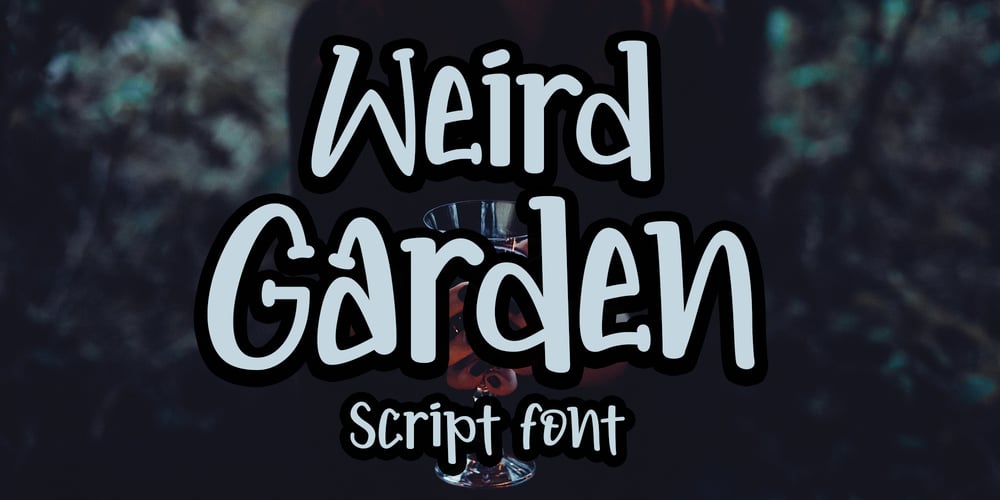
Weird Garden Font Family was designed by Endri Sulistyawan and published by Rashatype. Weird Garden contains 2 styles and family package options. Weird Garden is a cool, quirky and spooky display font. This font was particularly crafted for those who need a beautiful and refreshing look to their designs.